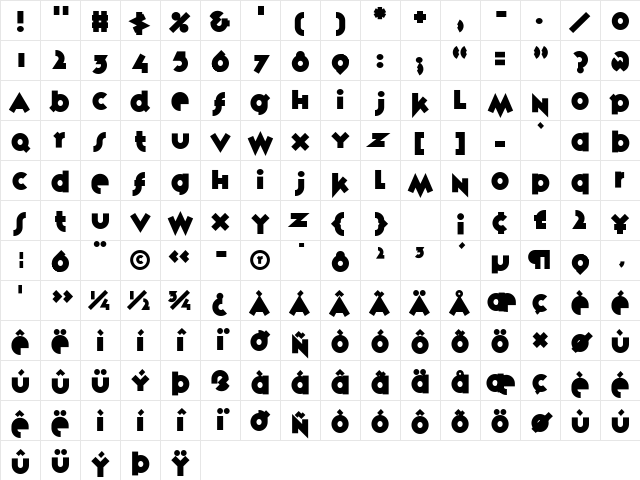
Complete Variex Bold glyph index. Displaying only characters natively supported by Variex Bold font.
Variex is a composed and adaptable typeface that performs quietly and consistently across a wide range of design contexts. Its bold stroke weight gives it real presence on the page.